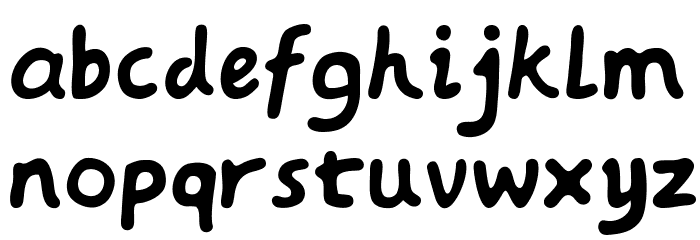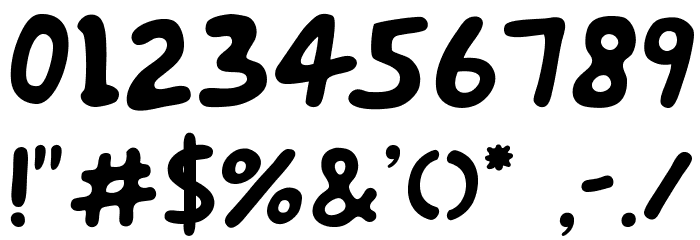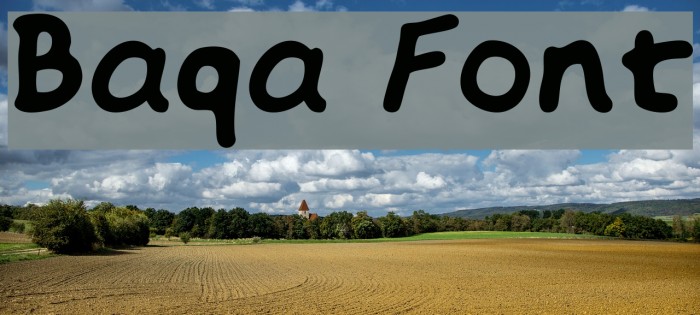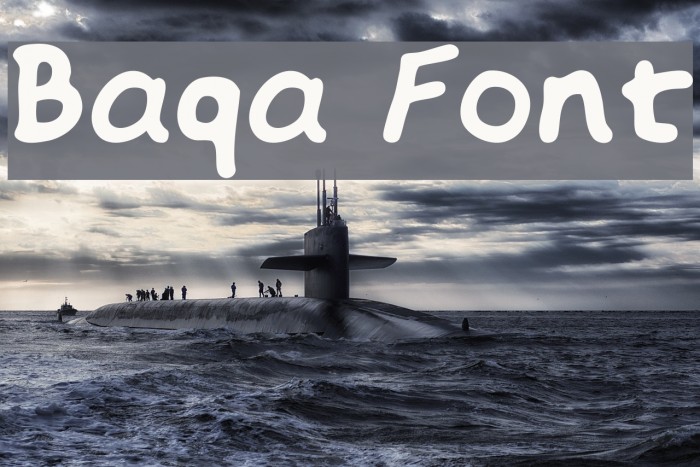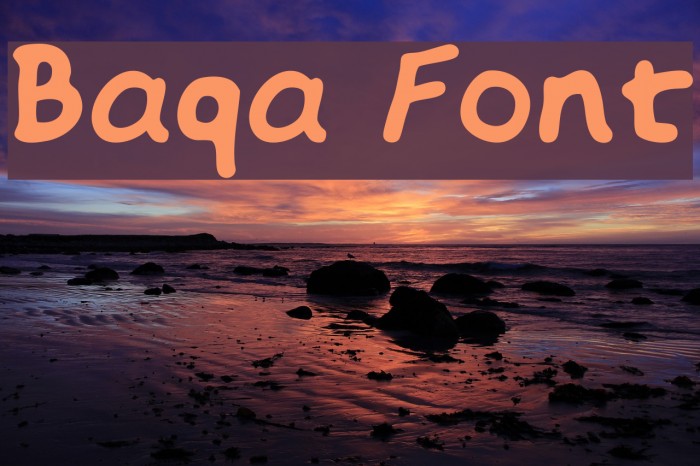
Baqa Font
This font features a playful and casual handwritten style, characterized by its rounded and slightly irregular letterforms. The strokes are bold and consistent, giving it a friendly and approachable appearance. The uppercase and lowercase letters maintain a uniform width, contributing to a cohesive look. The numerals and special characters follow the same design principles, ensuring visual harmony across all elements. This font's informal style makes it suitable for projects that aim to convey warmth and creativity.
A playful, handwritten font with bold, rounded strokes.
- Proposed Projects: Ideal for children's books, greeting cards, casual branding, and playful social media graphics.
- Overall Style: Casual
- Use Case: Headlines, Logos, Informal Text